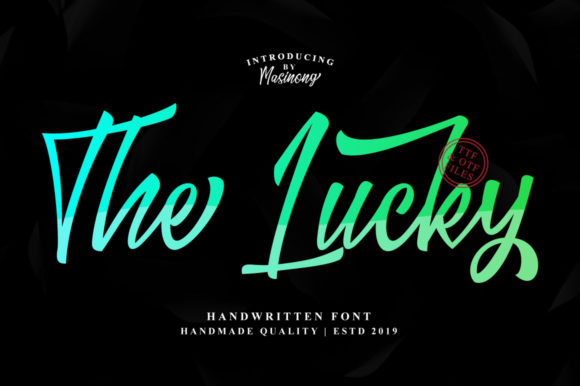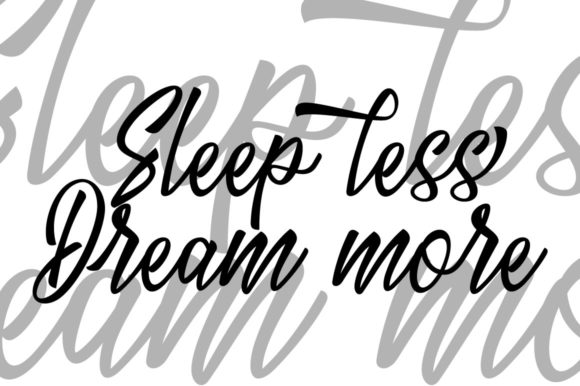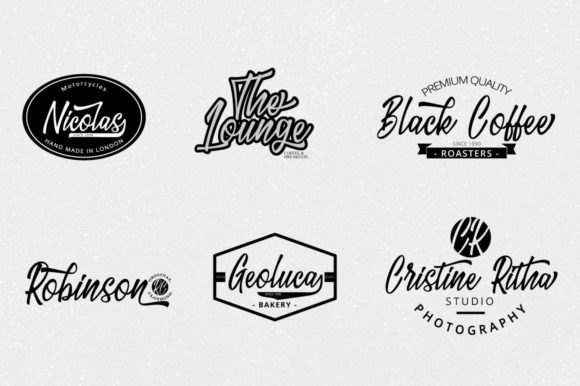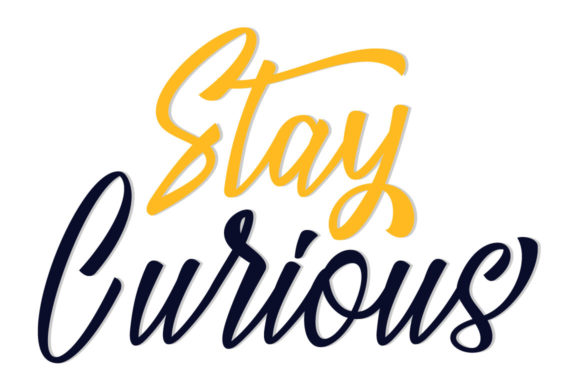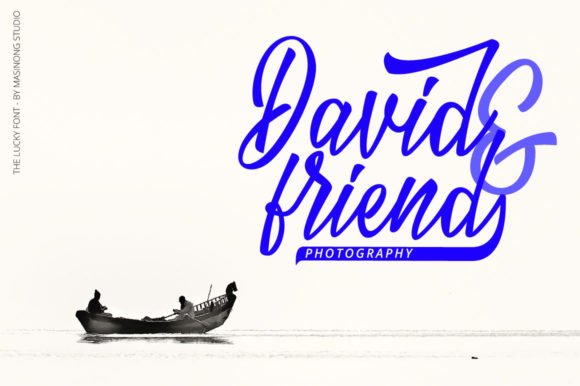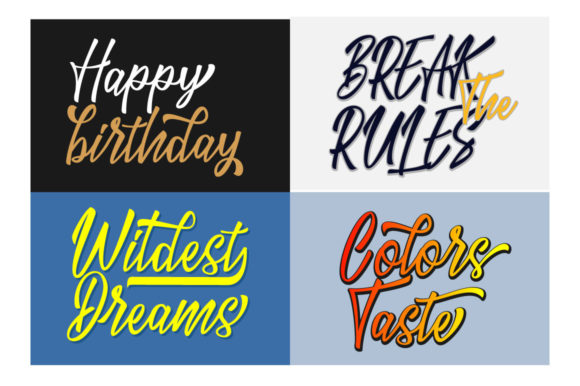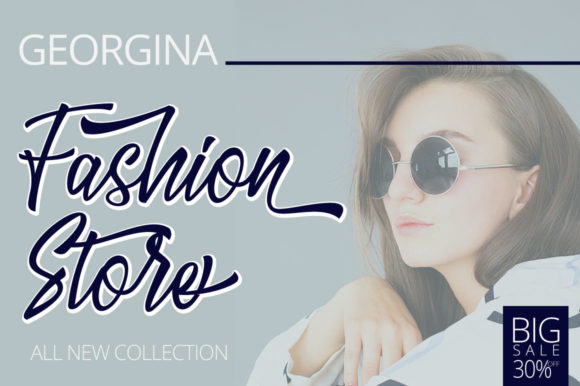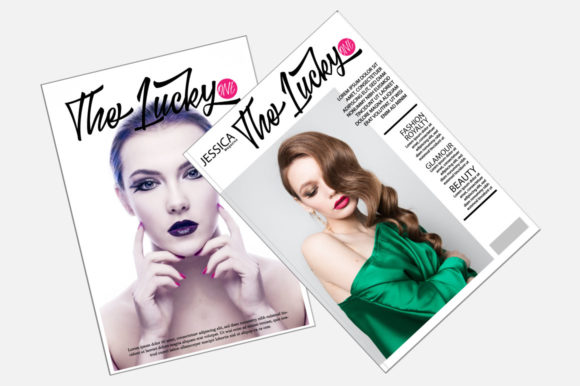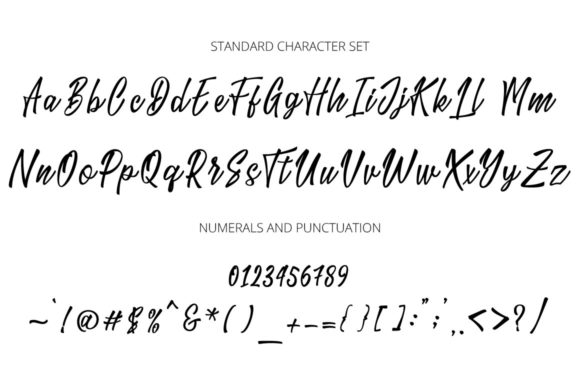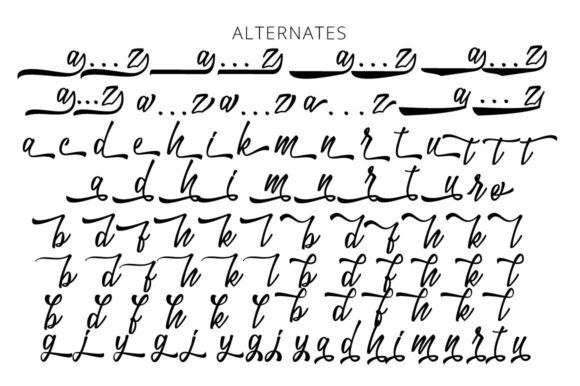
HomeScript FontsThe Lucky Font Script Fonts The Lucky Font FacebookXPinterestWhatsApp The Lucky Font Poster 2 The Lucky Font Poster 3 The Lucky Font Poster 4 The Lucky Font Poster 5 The Lucky Font Poster 6 The Lucky Font Poster 7 The Lucky Font Poster 8 The Lucky Font Poster 9 The Lucky Font Poster 10 About The Lucky Font The Lucky is an incredibly inspiring and luscious script with a dazzling vibe! DOWNLOAD ON CREATIVE FABRICAThis font is sold and delivered by Creative Fabrica. Font Canyon may earn a commission if you buy through this link. People also explored Banana Font Camping Jungle Font Monster Font Medusa Font Clair De Lune Amstrong Duo Font Honey Font Twicelights Signature Script Font Stanley Font 320 0 TagsThe Lucky Font Previous articleJeanne Petitténget FontNext articleGunstone Script Font LEAVE A REPLY Cancel reply Comment: Please enter your comment! Name:* Please enter your name here Email:* You have entered an incorrect email address! Please enter your email address here Website: Save my name, email, and website in this browser for the next time I comment. Personal Use Free Love Memories Personal Use Free Read more about this font Heart Memory Personal Use Free Read more about this font Mellgatha Personal Use Free Read more about this font Good Times Personal Use Free Read more about this font BLOG Modern Sans-Serif Fonts That Brands Love in 2025 In 2025, modern sans-serif fonts remain a top choice for brands looking to project clarity, professionalism, and... Free Fonts Risk: Why Free Fonts Can Be Dangerous for Designers To increase your work productivity, choose the most readable fonts. 5 Fonts That Will Dominate Design Trends in 2026